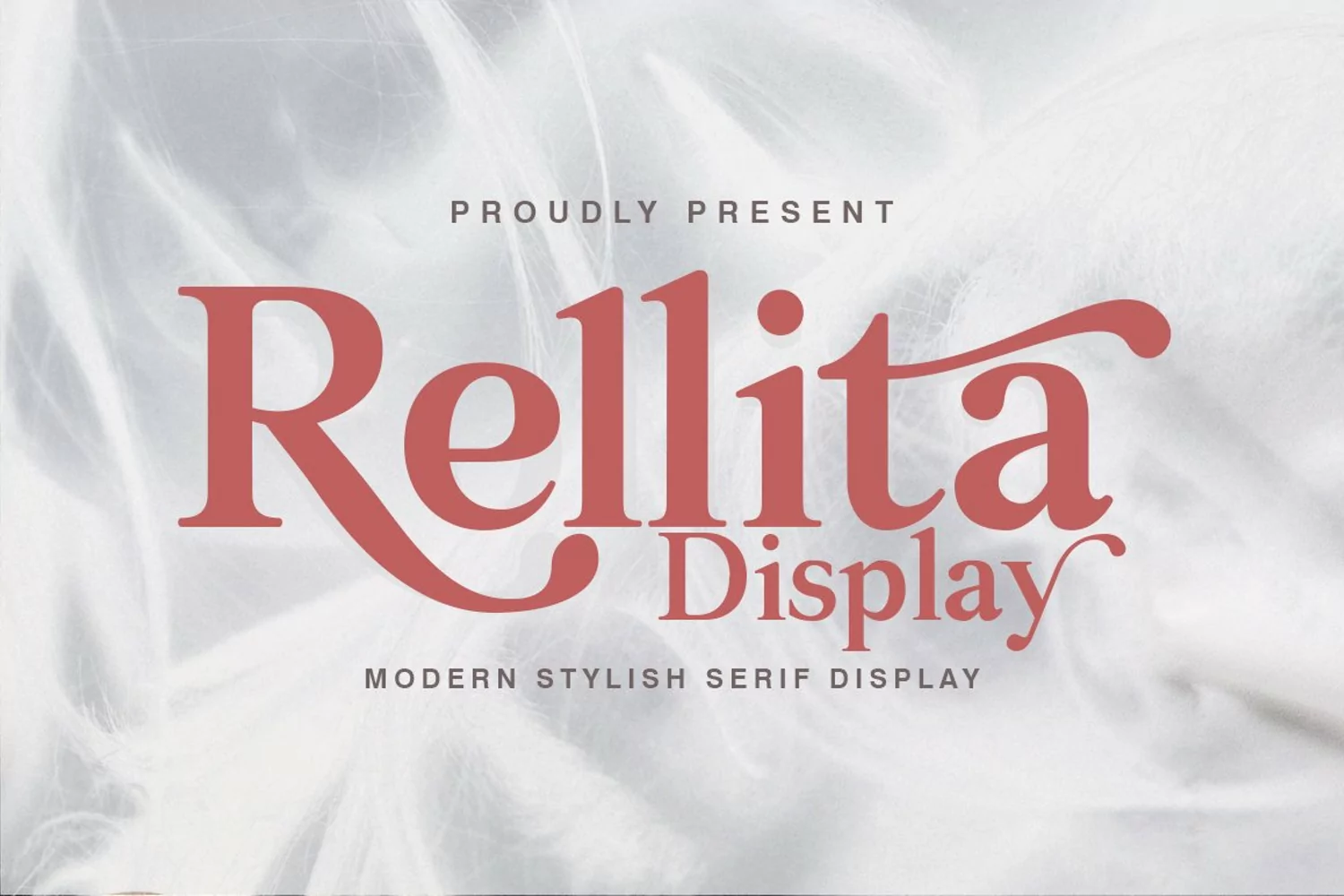
Rellita Display is a serif font with a luxurious, elegant, modern, unique and classy look. This font was specially created for luxury themed projects, branding projects, Magazine, Social Media, Branding, Logos, website headers or simply as a stylish text overlay to any background image. and Many more need a Luxury touch.
Rellita Display includes full set: Swash Ligature stand discretionary Ligatures uppercase and lowercase multilingual character number punctuation